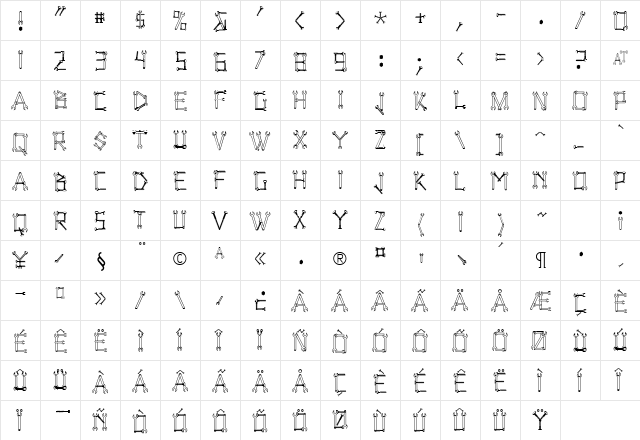
WrenchedLetters Regular Font Preview
WrenchedLetters Regular
Design Context for WrenchedLetters Typeface
WrenchedLetters is a composed and adaptable typeface that performs quietly and consistently across a wide range of design contexts.